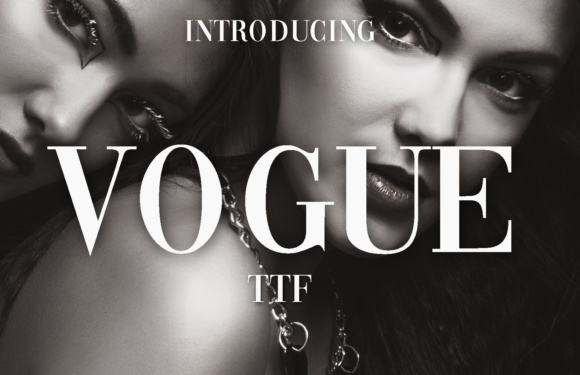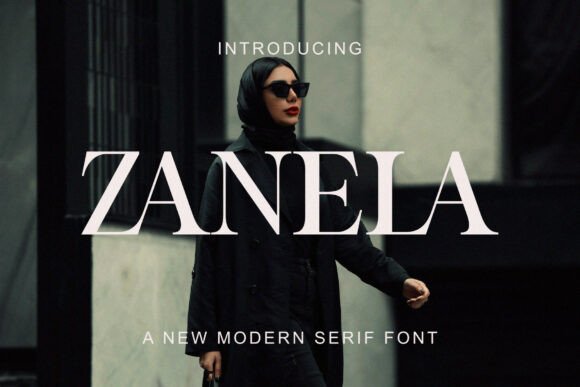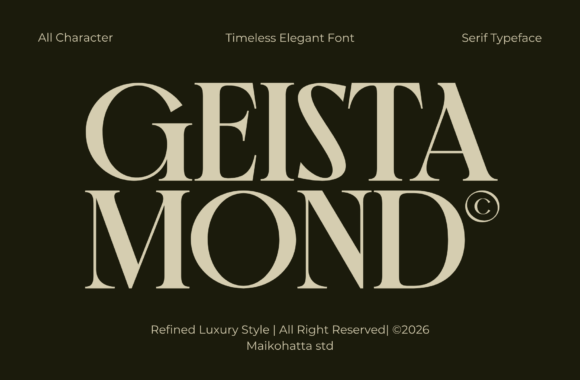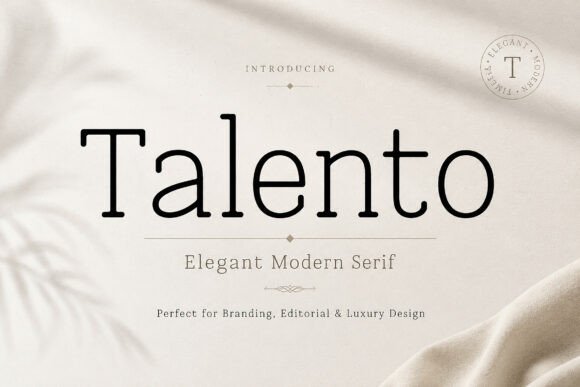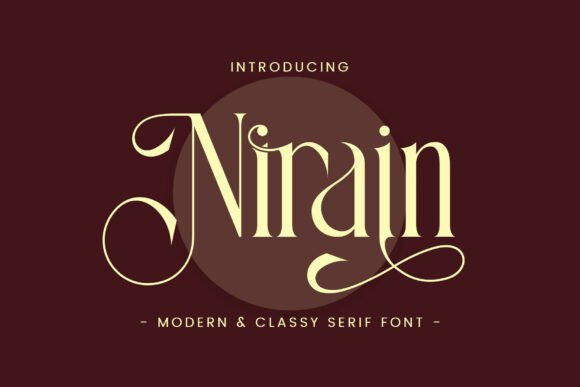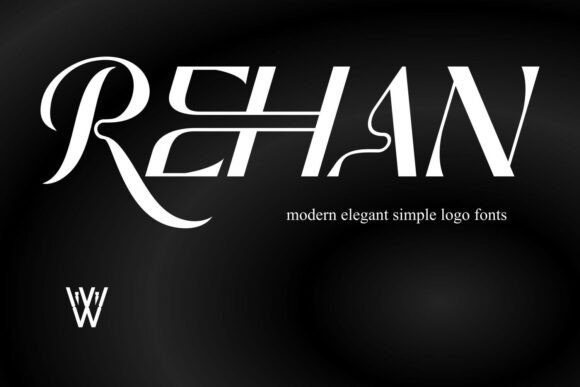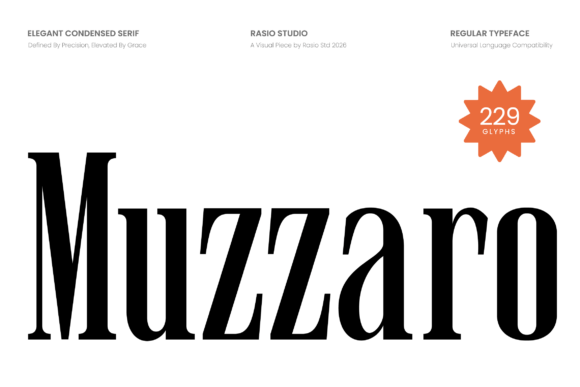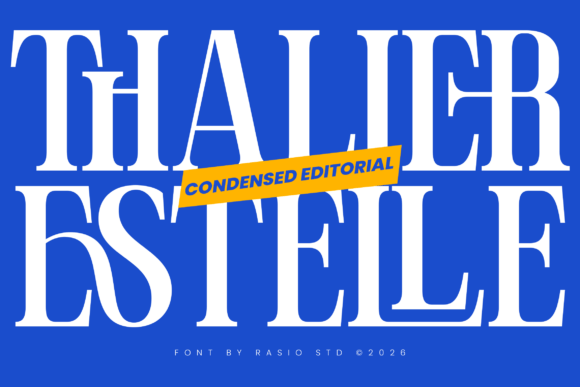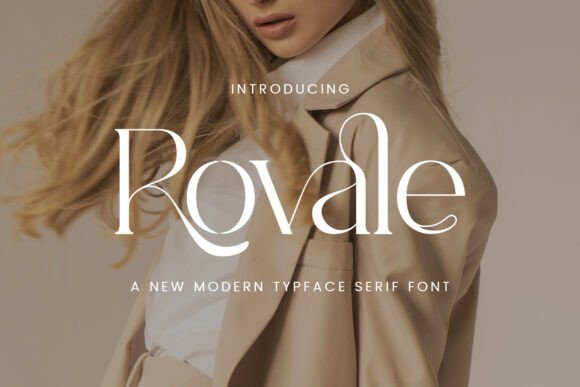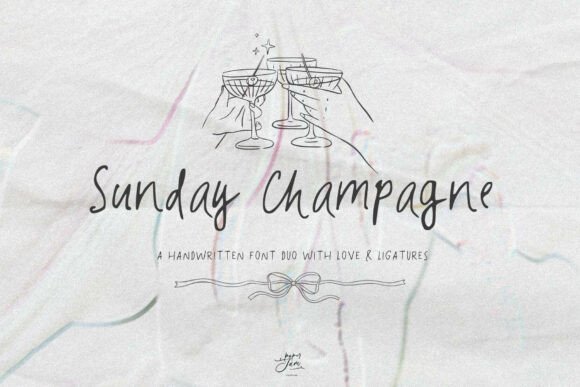
23 Aesthetic Fonts for Instagram (2026)
The best fonts for Instagram do their work in a thumbnail. A quote post, a story or a fashion grid is seen small and scrolled fast, so the type has to feel aesthetic and stay readable at the same time. Strong fonts for Instagram lean on elegant serifs and clean shapes that photograph well and stop a thumb mid-scroll.
This guide sorts 23 fonts by use, elegant serifs for quotes, editorial faces for grids, bold headers, script captions and full bundles, so you can build a consistent feed look.
How to choose fonts for Instagram
A feed lives or dies on consistency. A few habits make fonts for Instagram look aesthetic and cohesive.
- Pick two, not ten: one serif for headlines and one clean face for captions.
- Test in a thumbnail: shrink the post to feed size and check it still reads.
- Mind contrast: set type on calm backgrounds so it stays legible.
- Stay consistent: reuse the same two fonts across posts for a recognisable look.
Elegant serif fonts for Instagram quotes
Start here. These elegant serif fonts for Instagram give quote posts a refined, screenshot-worthy look.
Vogue
Vogue is a fancy, elegant fashion serif inspired by classic magazine styling. Among fonts for Instagram it brings instant editorial glamour to a quote or a cover, perfect for a fashion or beauty feed. Use it large for the headline and a clean sans for captions. The high-fashion forms read chic in a thumbnail. For an Instagram feed that wants a magazine-cover look, Vogue is a striking serif worth trying.
Zanela
Zanela is a modern serif built for high-fashion presence. Among fonts for Instagram it commands a quote post or a reel cover with confident contrast. Use it large for the statement line and a plain sans for the handle. The bold serif forms read striking small. For a fashion-led feed that wants confident, editorial quote posts, Zanela is a strong serif worth a look.
Mellos
Mellos is an elegant display serif with a romantic character. Among aesthetic fonts for Instagram it is a graceful quote face, with the contrast and poise that read beautifully in a square post. Use it large for the quote line and a clean sans for the handle. The refined forms photograph well on calm backgrounds. For a feed that wants romantic, screenshot-worthy quote posts, Mellos is a lovely serif worth a close look.
Geista Mond
Geista Mond is a timeless luxury serif with elegant curves and refined contrast. Among aesthetic fonts for Instagram it gives a quote or a brand post a premium, considered feel. Use it large for the quote and a clean sans for the caption. The refined forms read expensive in a square. For a feed that wants a luxury, quietly-elegant look, Geista Mond is a graceful serif worth trying.
Talento
Talento is an elegant modern serif with clean lines and refined detail. Among fonts for Instagram it is a flexible quote face, polished yet readable in a thumbnail. Use it large for the statement and the same family for support. The clean serif forms photograph well. For a feed that wants modern, elegant quote posts, Talento is a dependable serif worth a look.
Nirain
Nirain is a sophisticated modern serif that blends timeless elegance with a current edge. Among aesthetic fonts for Instagram it suits quote posts and brand grids that want refined contrast. Use it large for the quote and a clean sans for the handle. The forms read polished small. For a feed that wants a modern, timeless quote look, Nirain is a graceful serif worth trying.
Rehan
Rehan is a modern elegant serif crafted for a refined balance of contrast and clarity. Among fonts for Instagram it makes a clean, readable quote face that still feels designed. Use it large for the statement line and a plain sans for captions. The balanced forms read well in a thumbnail. For a feed that wants elegant but legible quote posts, Rehan is a reliable serif worth a look.
Editorial serifs for fashion grids and stories
For a fashion-magazine grid, these editorial serifs bring high-contrast polish to covers, stories and reels.
Muzzaro
Muzzaro is an elegant condensed serif with high-contrast strokes. Among editorial fonts for Instagram it fits a long headline into a narrow space, ideal for tall story covers and reel titles. Use it large and vertical-friendly with a clean sans for support. The condensed contrast reads dramatic small. For a fashion feed that wants tall, editorial story covers, Muzzaro is a striking serif worth trying.
Thalier Estelle
Thalier Estelle is a modern editorial serif with tall proportions. Among aesthetic fonts for Instagram it brings a magazine-masthead feel to a grid, with elegant height that suits cover-style posts. Use it large for titles and a clean sans for captions. The tall forms read polished in a square. For a fashion feed that wants an editorial, cover-led grid, Thalier Estelle is a graceful serif worth a look.